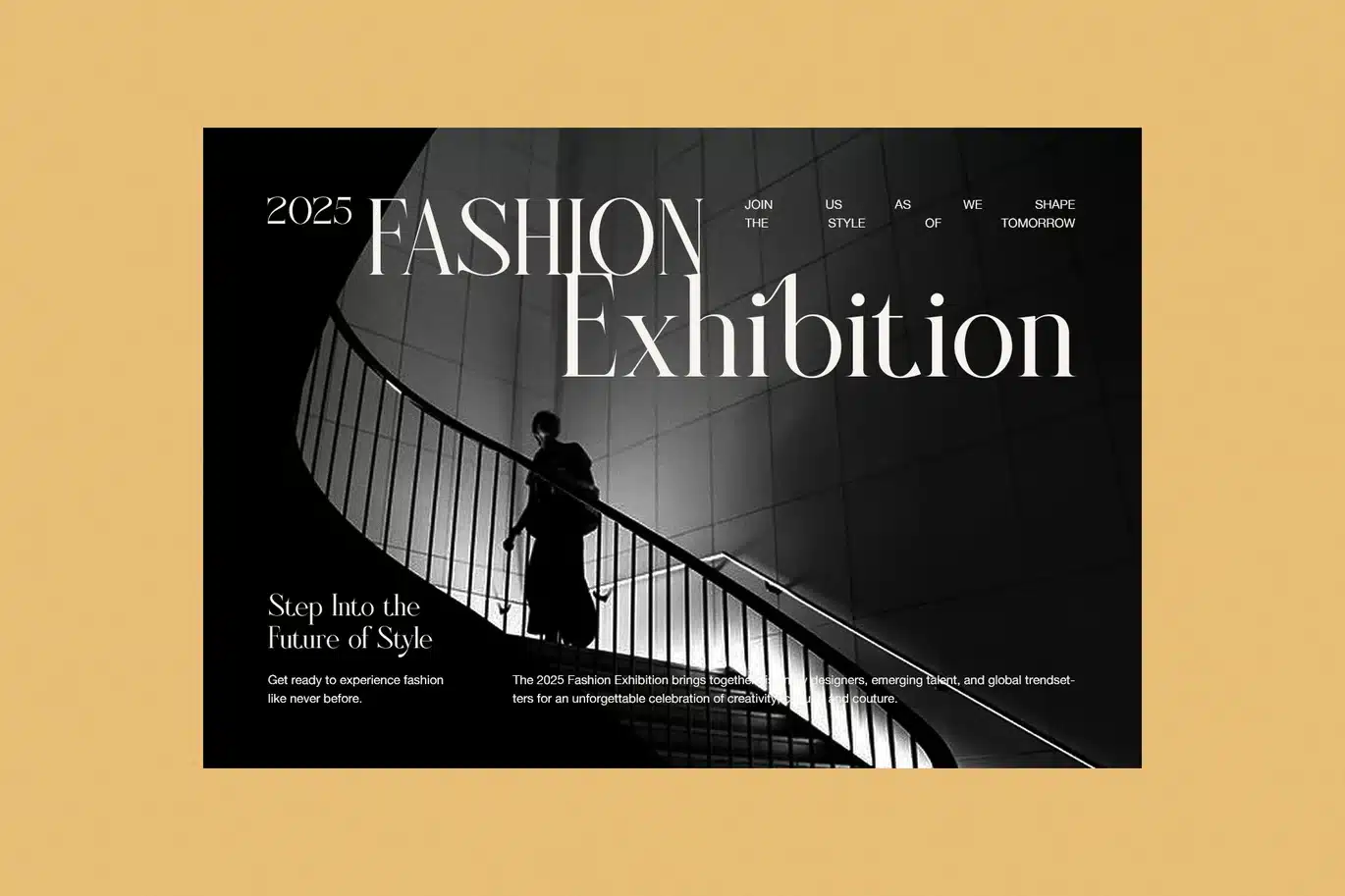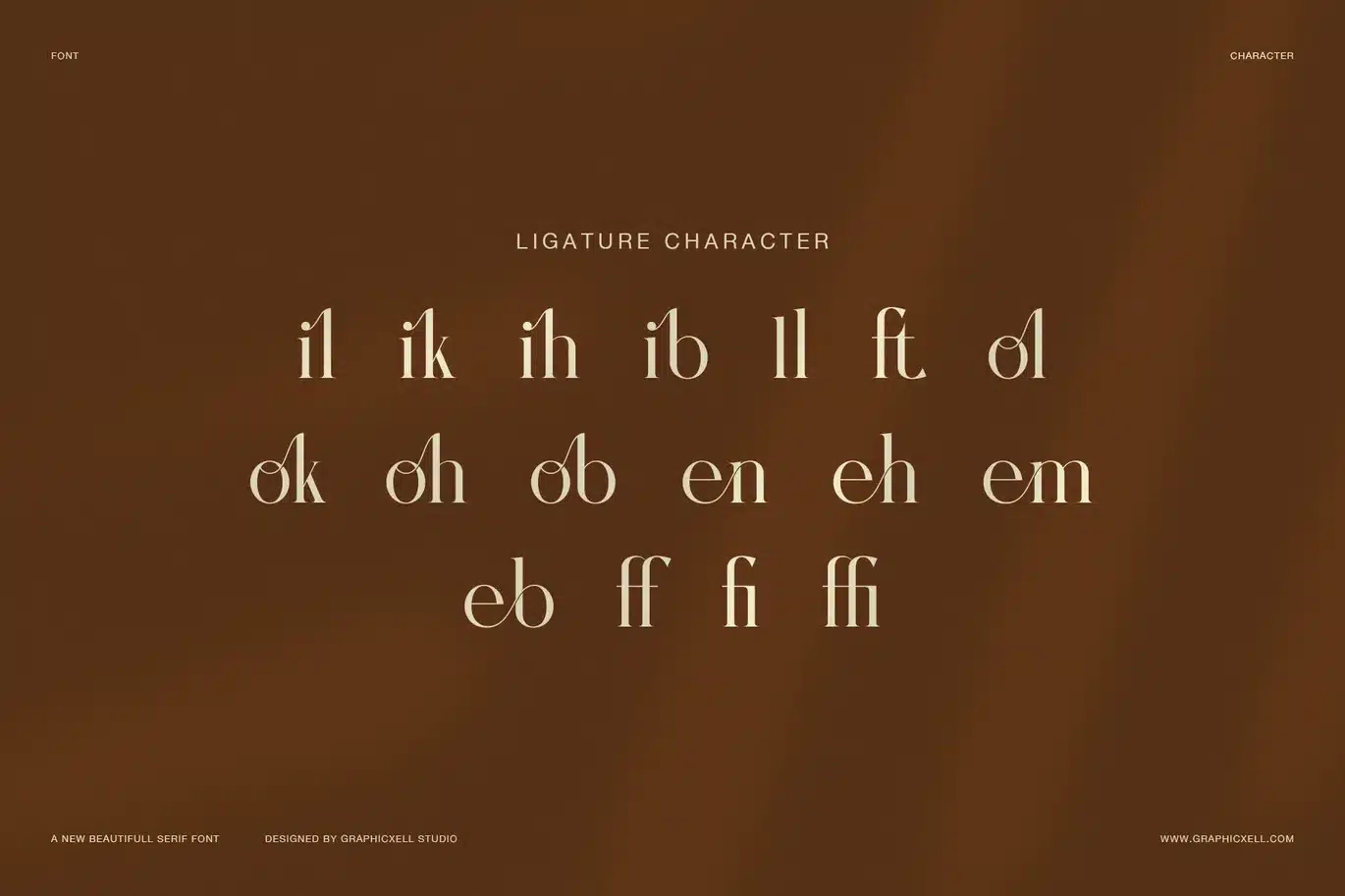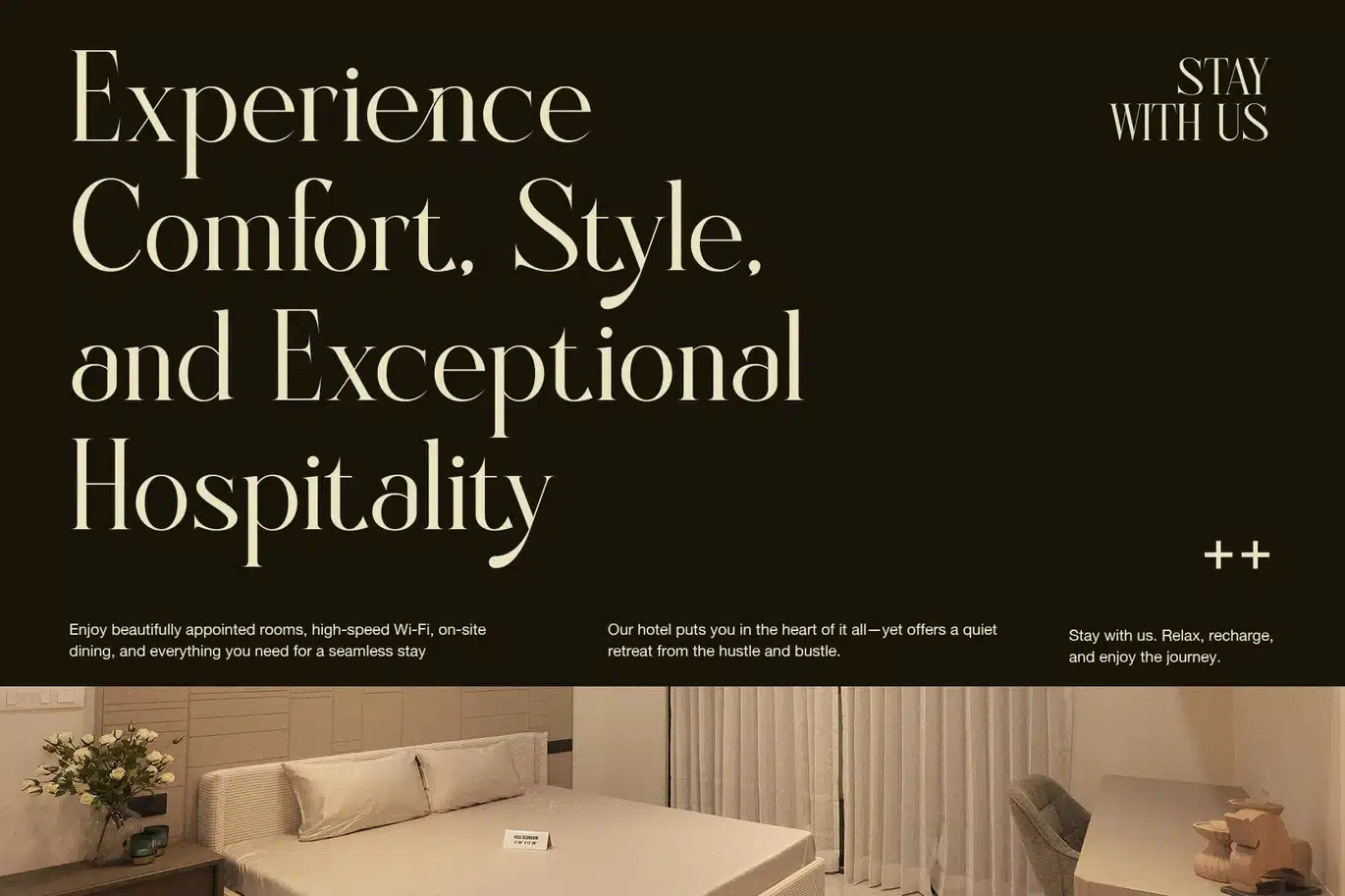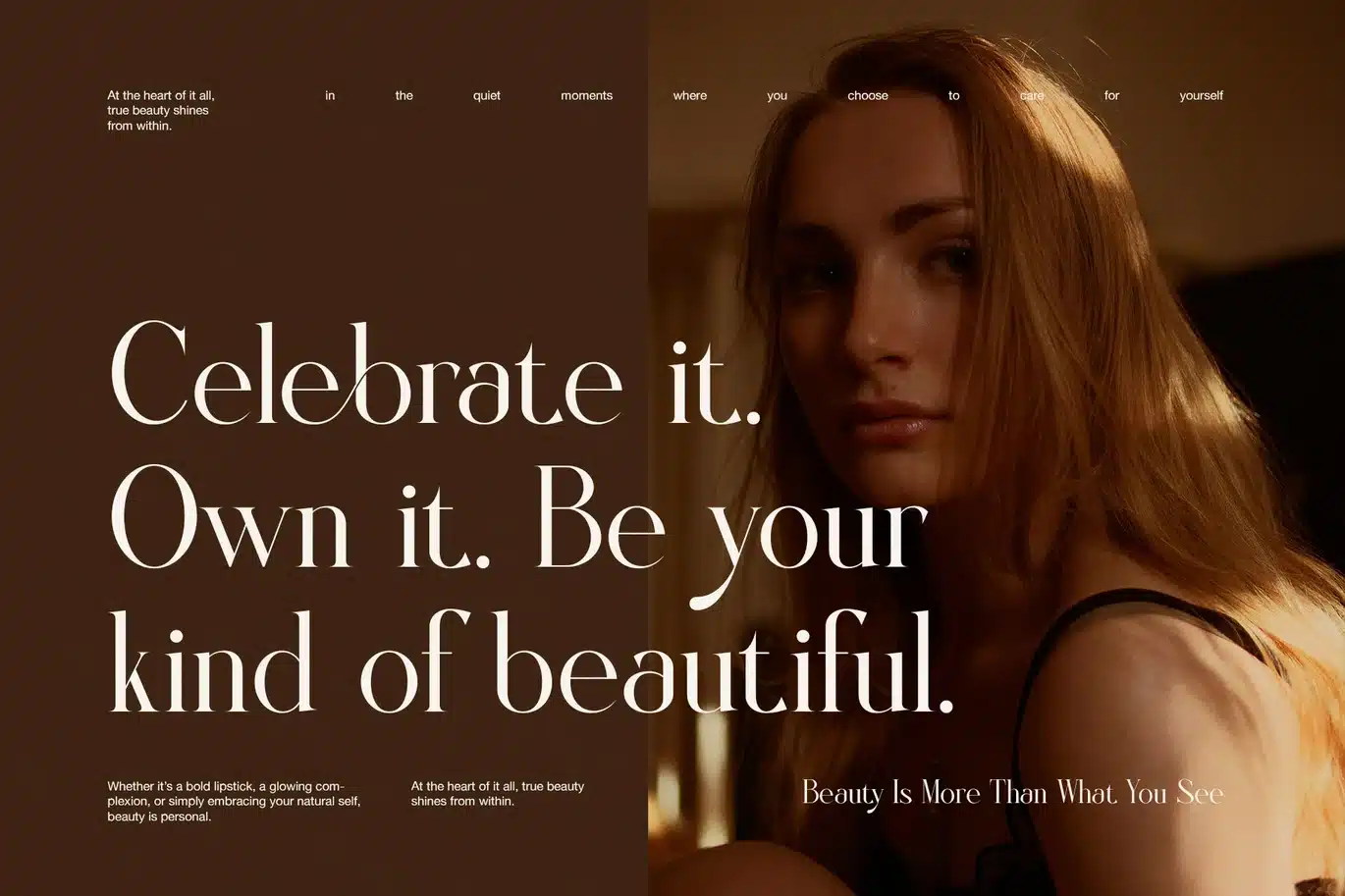
Gilfen Elegant Serif Font
Gilfen Elegant Serif Font is a soft and stylish typeface made for designers who value timeless design. It mixes modern simplicity with classic beauty, creating letters that look smooth, graceful, and easy to read. Because of its gentle shape and elegant flow, this font is ideal for logos, invitations, magazines, and packaging.
Every letter in Gilfen has a clean form and calm balance. The light contrast between strokes gives it charm and warmth. As a result, your text feels natural and polished at once. In addition, the clear spacing and rounded edges help each word stand out, so your message stays elegant without feeling heavy.
Gilfen also includes uppercase and lowercase letters, numbers, punctuation, and alternates. It comes with simple ligatures and supports many languages, which makes it flexible for designers around the world. Therefore, you can use it for both modern and classic projects with equal success.
You can use Gilfen for:
Brand logos and packaging design
Elegant wedding invitations and stationery
Editorial headlines or magazine layouts
Website banners and fashion titles
Posters, quotes, or social content
Because of its simple beauty, Gilfen adds luxury without overdoing it. It helps create designs that feel calm, creative, and professional. Moreover, it pairs well with minimalist layouts or high-end visuals. The gentle rhythm of each stroke keeps the design refined and easy to read.
In short, Gilfen Elegant Serif Font brings harmony to words. It is smooth, classy, and versatile. Whether for branding, weddings, or digital projects, Gilfen gives every design a soft, modern touch that lasts.